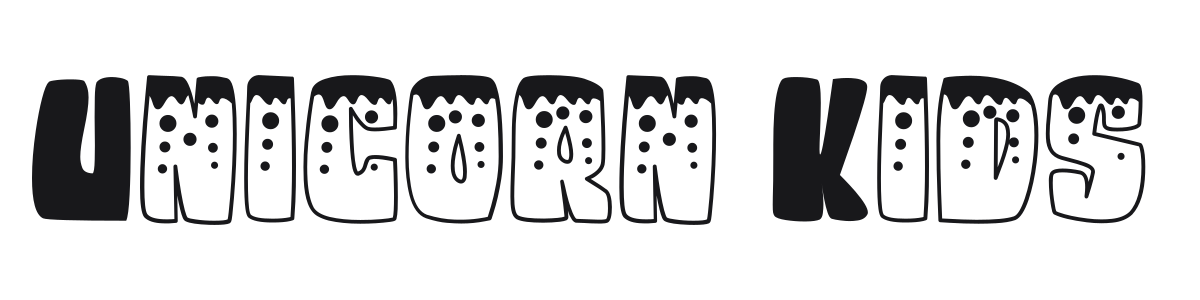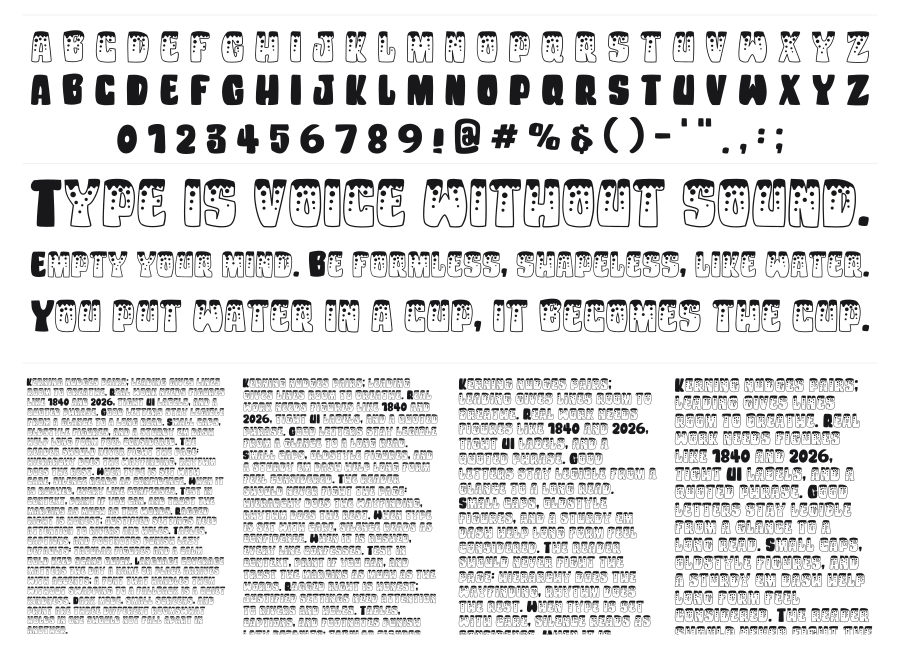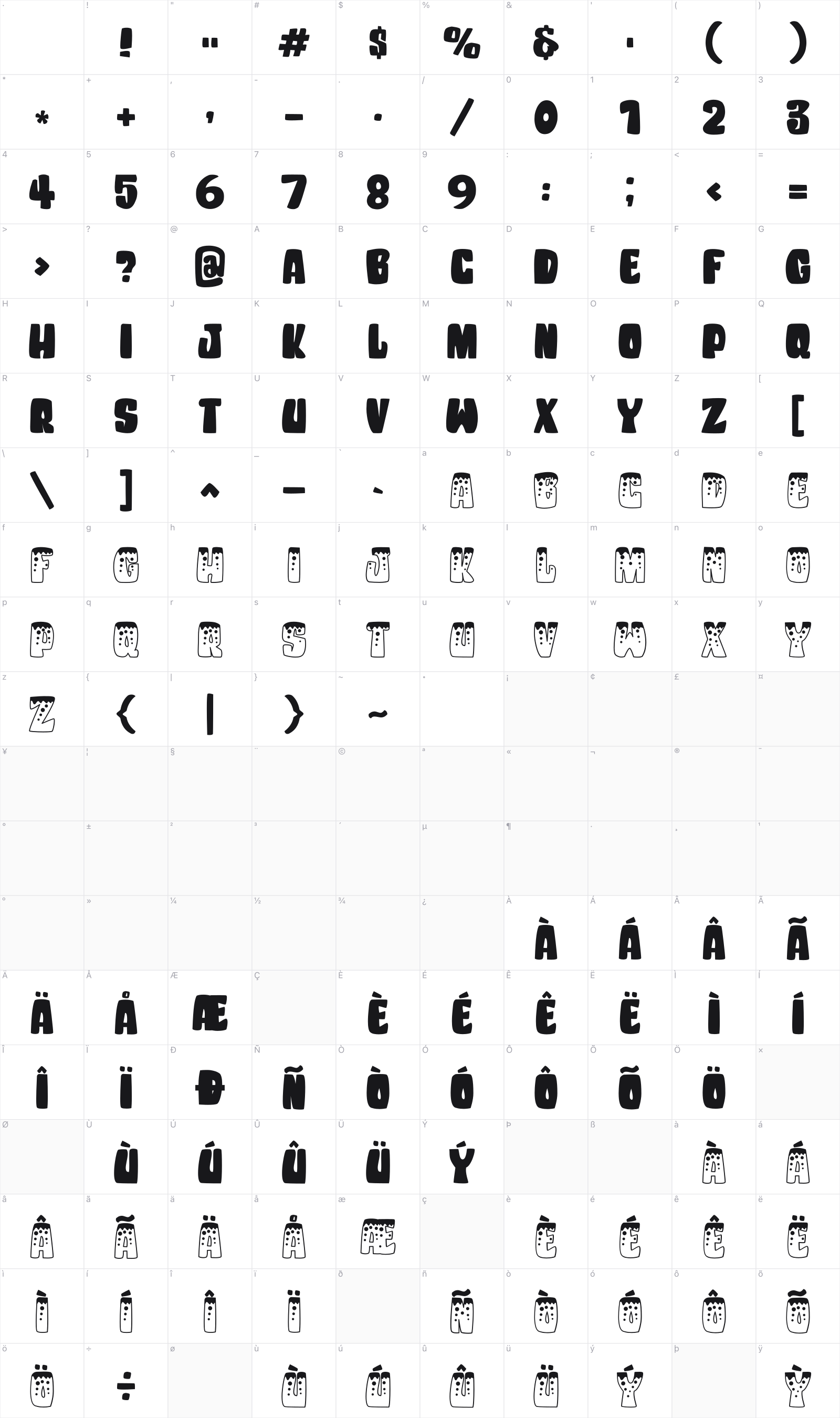
Unicorn Kids
Unicorn Kids is a chunky display font styled to look like letters frosted and dripping from a birthday cake. The thick outlines, melting-top silhouettes, and scattered dot cutouts across each character create an unmistakable confectionery feel. It suits children's branding, party graphics, and anything that needs a generous helping of fun.